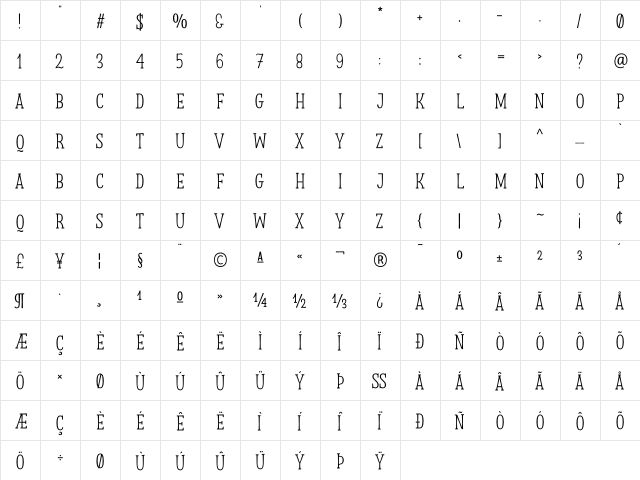
Storyteller Serif Regular
Design Context for Storyteller Serif Typeface
Storyteller Serif carries the refined structure of traditional serif typography, with bracketed terminals and considered proportions that communicate credibility and craft.
Pro Tip: Use Storyteller Serif for editorial body copy and considered headline work. Pair with a neutral sans for UI elements or captions to create a classic hierarchy.